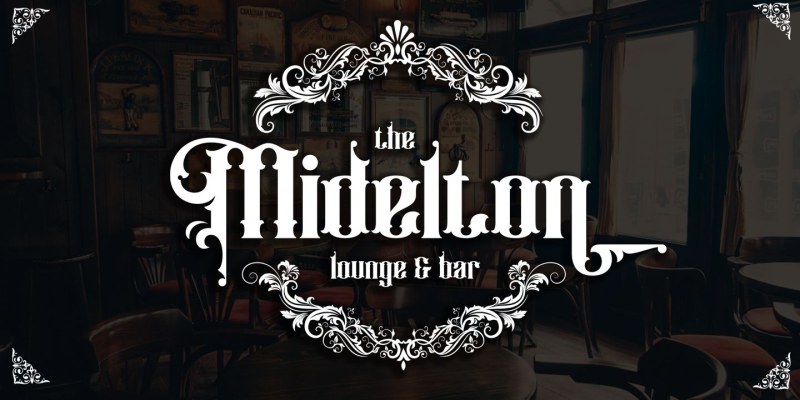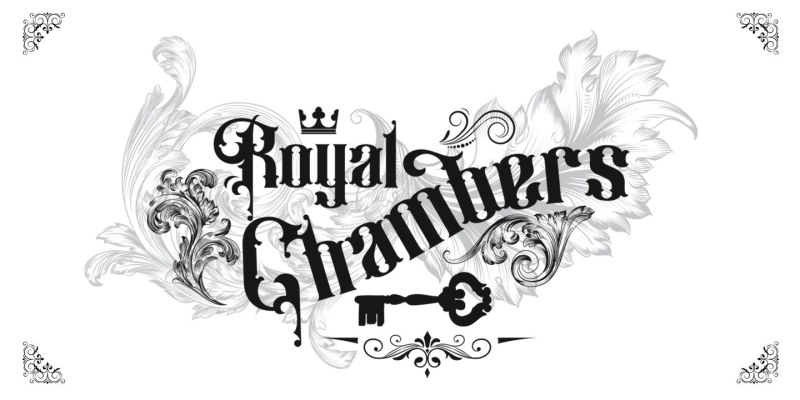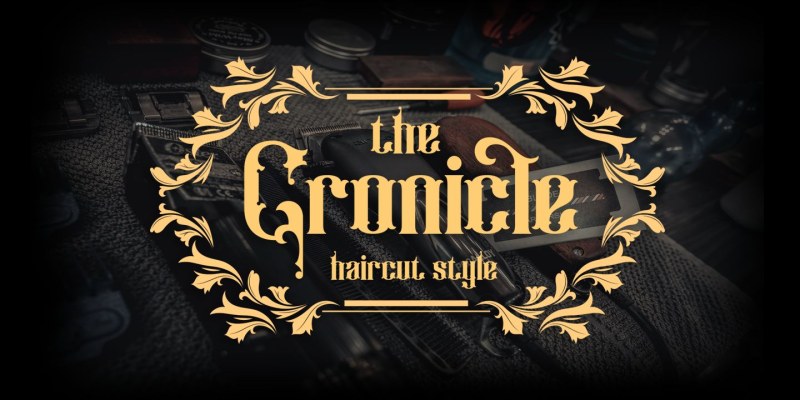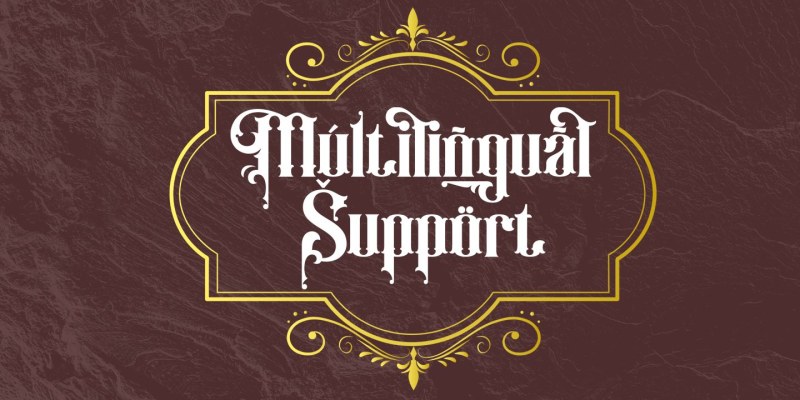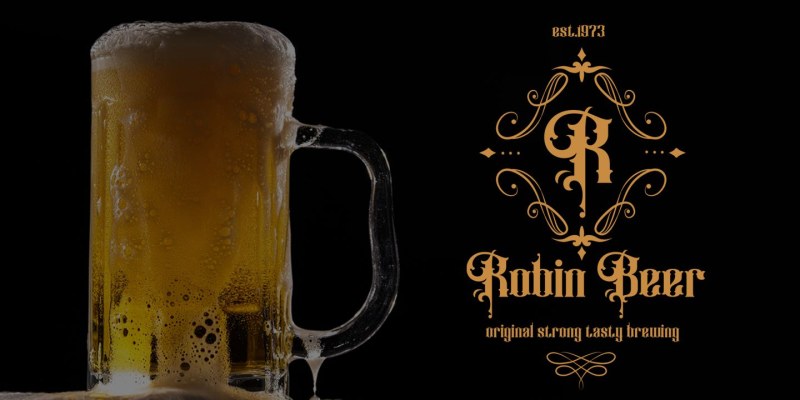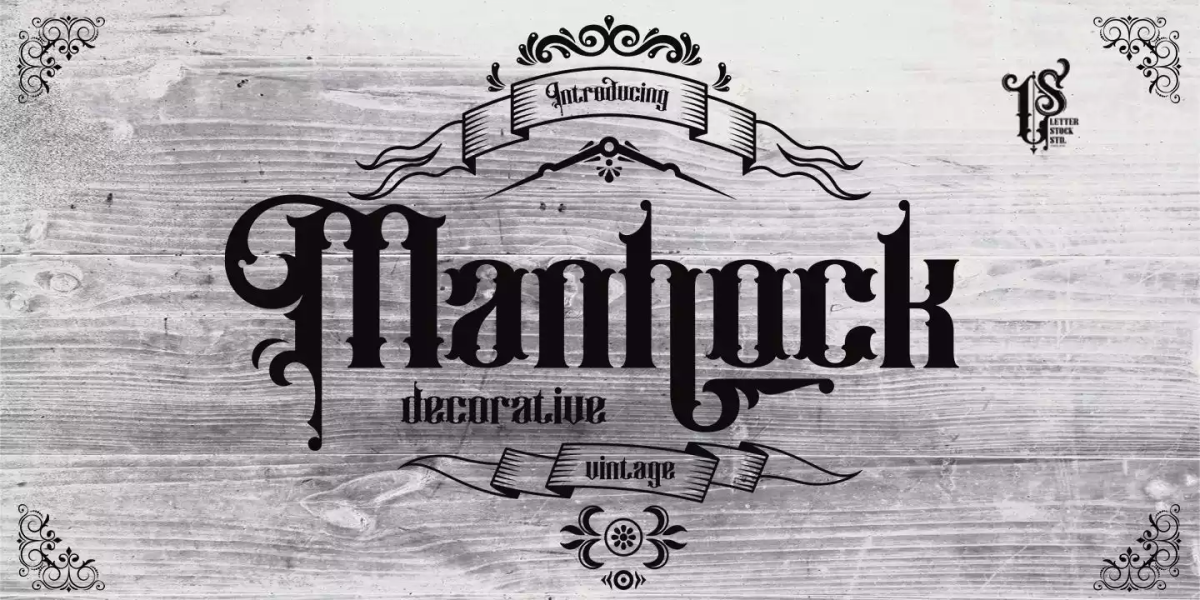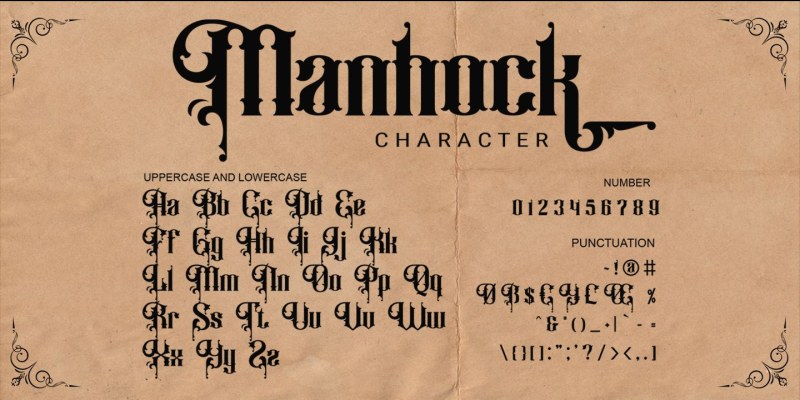
Manhock Font
This pair was inspired by t-shirt design that I saw at Instagram, It was crafted by hand specially to add natural handmade feeling in its brand identity than i make it clean with pentool. Manhock Font is very good looking in logo, movie poster design, YouTube thumbnail, labels, product packaging, invitations, advertising and others. If you need a font for with decorative vintage style, Manhock font is great choice for you to make your design authentic and unique.
Where Manhock Font works best
Event & seasonal design
Manhock Font suits themed posters, holiday campaigns, festival identities and party invitations.
Game & entertainment titles
Decorative letterforms are a natural fit for game logos, movie-style titles and merch.
Packaging accents
Use Manhock Font sparingly for product names or flavour labels that need personality.
What is Manhock Font good for?